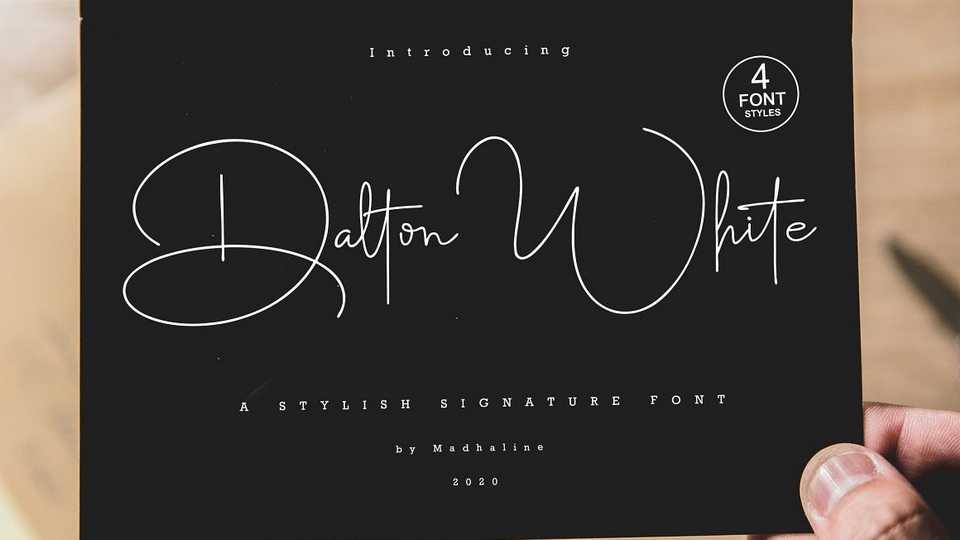
Download Dalton White font, a trendy signature style typeface with a natural handwritten look. Dalton White would perfect for photography watermark, social media posts or anything that need handwriting taste.